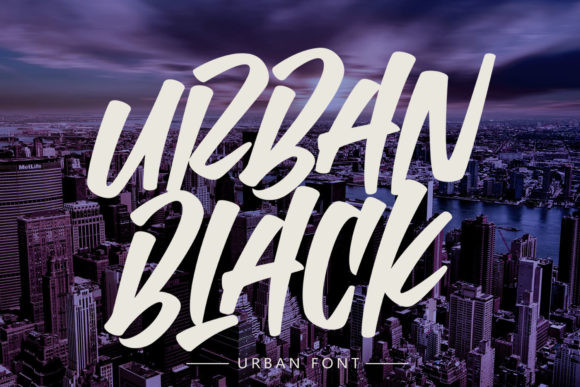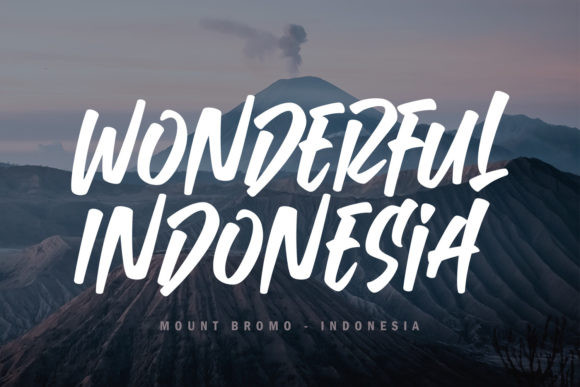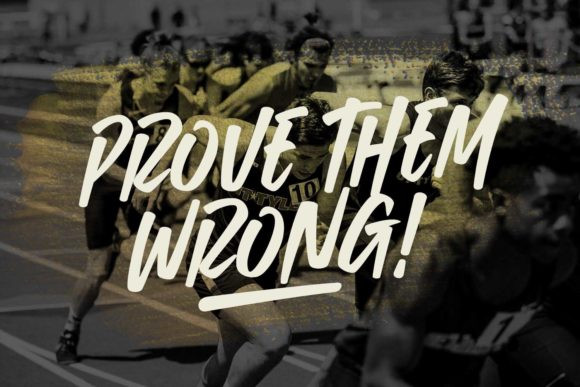
Urban Black Font
Urban Black is a bold, brushed display font. This font reads as strong, confident, and dynamic and can add tons of trendy character to your designs.